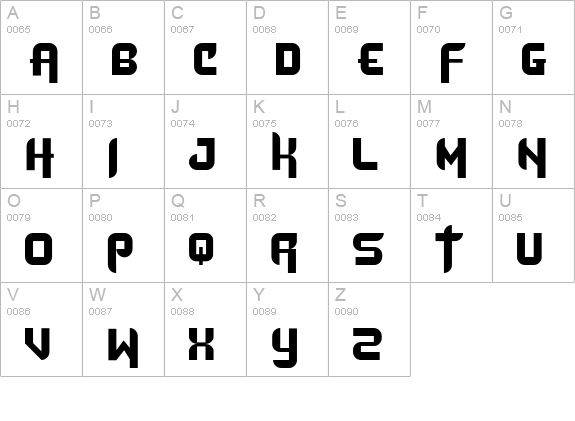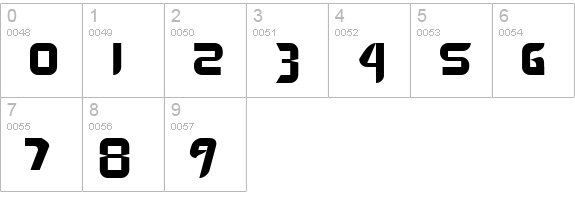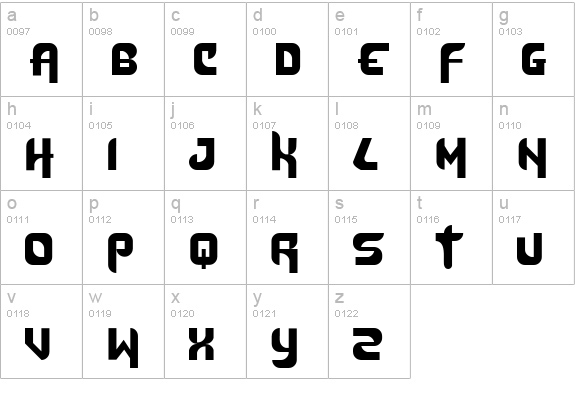
Dafunk2 Font Details
Dafunk2 font is a stylish and modern typeface that will bring a funky and vibrant touch to your designs. This font is perfect for creating eye-catching headlines, logos, posters, and more. With its unique and playful letterforms, Dafunk2 will surely make your designs stand out from the crowd. One of the best things about Dafunk2 font is that it is free! Yes, you heard it right. This amazing font is freely available to download at FontsMarket.com. You no longer need to worry about breaking the bank to get a high-quality font for your projects. Dafunk2 offers you the opportunity to add a touch of creativity and uniqueness to your designs without any cost. Whether you are a professional designer or someone who loves to experiment with typography, Dafunk2 font is a must-have in your font collection. Its versatility allows you to use it in various design projects, from branding and advertising to social media graphics and website designs. With its smooth lines and balanced proportions, Dafunk2 font guarantees readability and legibility, ensuring that your message is delivered effectively. It is available in multiple font weights and styles, allowing you to customize and play around with different combinations to achieve the desired look and feel. So why wait? Enhance your designs with the captivating and free Dafunk2 font. Download it now from FontsMarket.com and let your creativity flow!